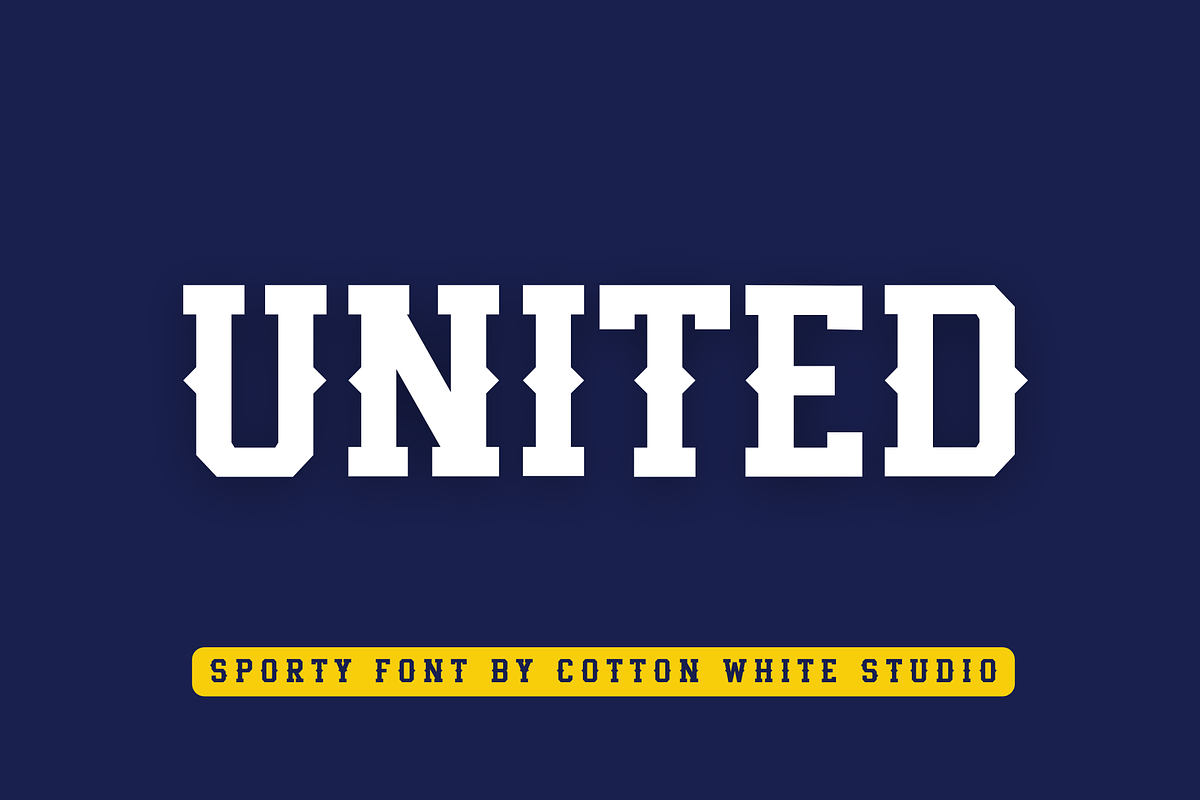
United Font is perfect for team-building materials, community organization branding, social movement campaigns, unity-focused marketing, collaborative project designs, inclusive business communications, partnership announcements, global brand identities, multicultural event promotions, solidarity campaign graphics, cooperative venture materials, and harmonious design applications.
United Font is exciting because it embodies the power of unity and collective strength through its harmonious letterforms that celebrate diversity, collaboration, and the beautiful synergy that emerges when different elements come together for a common purpose. This inspiring typeface features balanced character construction with unified design elements that reflect the strength found in solidarity and the transformative power of working together. The font's unifying aesthetic creates instant emotional connections with audiences who value cooperation, inclusivity, and the shared human experience that transcends individual differences.
United Font includes comprehensive font families: Regular Unity Style, Bold Collective Weight, Light Harmony Touch, Medium Balanced Format, Italic Flowing Together, Condensed Solidarity Format, Extended Inclusive Width, Strong Alliance Version, Gentle Cooperation Alternative, and Special Unity Symbols, providing complete solutions for community-focused and collaborative design projects that celebrate togetherness, diversity, and collective achievement.
This inspiring typography solution transforms ordinary communications into powerful unity experiences through its authentic collaborative aesthetic and inclusive design language. United Font Free Download enables designers and community organizations to access premium unity typography that instantly adds strength, inclusivity, and collaborative appeal to any creative project. The font's carefully crafted unifying elements ensure authentic community character while maintaining excellent readability and distinctive collective presence.
Community organizations, global brands, and collaborative businesses trust United Font for its ability to communicate unity, inclusivity, and collective strength to audiences seeking authentic community connections and collaborative experiences. The typeface's harmonious construction performs beautifully across various applications, from intimate community communications to large-scale global unity campaigns. Its extensive character support includes multilingual capabilities and unity-themed design elements that enhance inclusive brand presentations.
The creative inspiration behind United Font draws from the universal human desire for connection, the strength found in diversity, and the powerful movements throughout history that have brought people together for positive change. This unity-focused approach creates a font that feels genuinely inclusive while maintaining contemporary relevance across different community contexts and collaborative brand expressions.